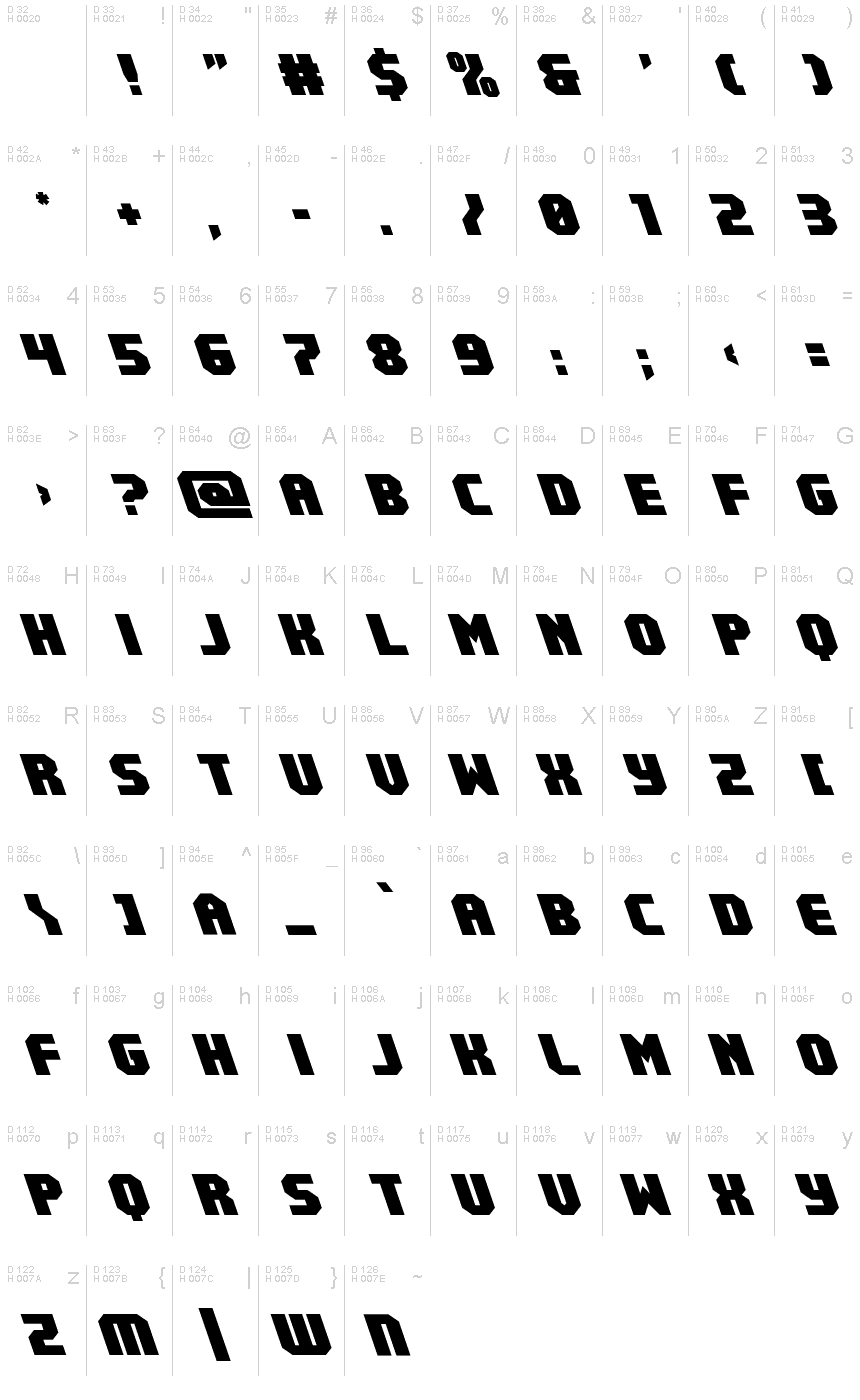
Metal Sentinel Leftalic
Introducing Metal Sentinel Leftalic, a bold and futuristic display font designed by Daniel Zadorozny. With its strong techno style, this font is perfect for projects that require a bold and commanding presence. Use it to create logos, posters, or website headers that demand attention. Its sharp angles and sleek curves will make your designs stand out from the crowd. Whether you're working on a sci-fi movie poster or an edgy fashion campaign, Metal Sentinel Leftalic is the ideal choice for any project that needs a modern and powerful vibe. Try it out today and see how it can elevate your designs to the next level!